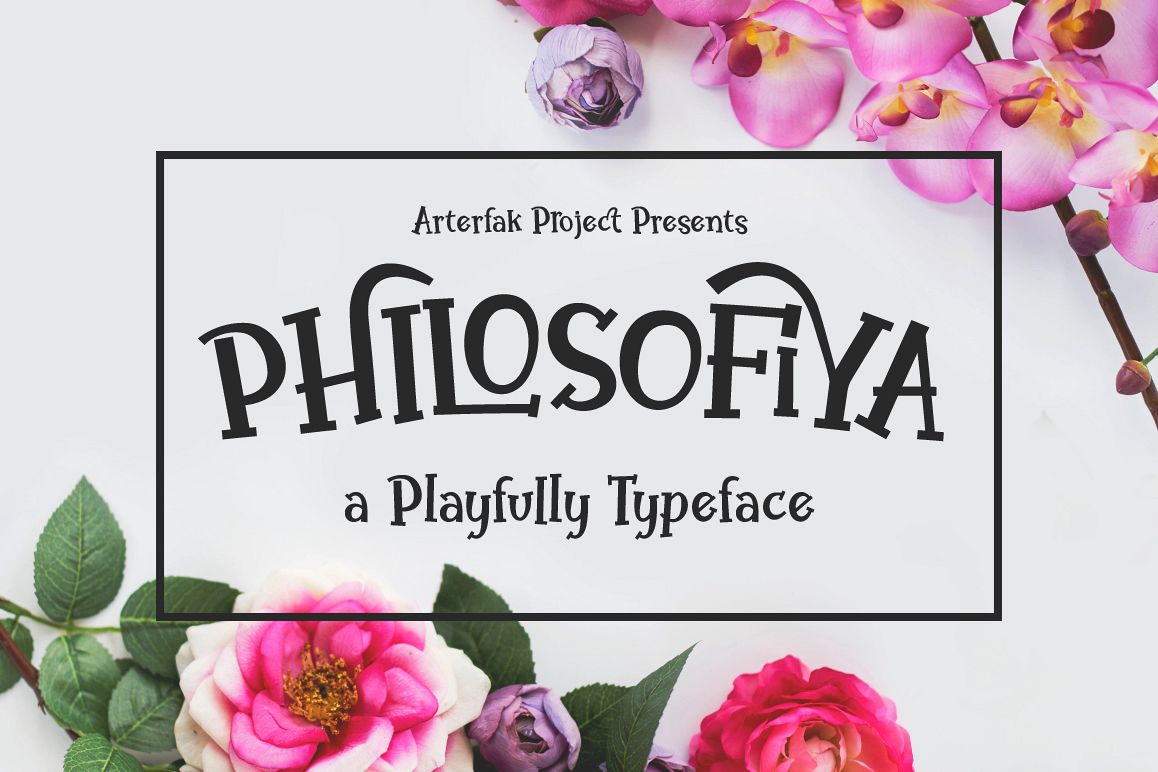
Philosofiya Typeface
Hi! Introducing our new item, Philosofiya
typeface. The random character shapes made with playful sense. With
100% different shapes between uppercase, lowercase and ligatures. Yes,
100% digital hand made font that you can use for your any design
project, especially for minimalist, romantic, modern, cute or funny
theme. Also looks good for headline or body text usability.
There are over 100 custom ligatures in this font, that you can
combine and make it looks more playful. The lowercase position already
set to be combine with uppercase. Of course with some alternates to give
it dynamic touch each words.